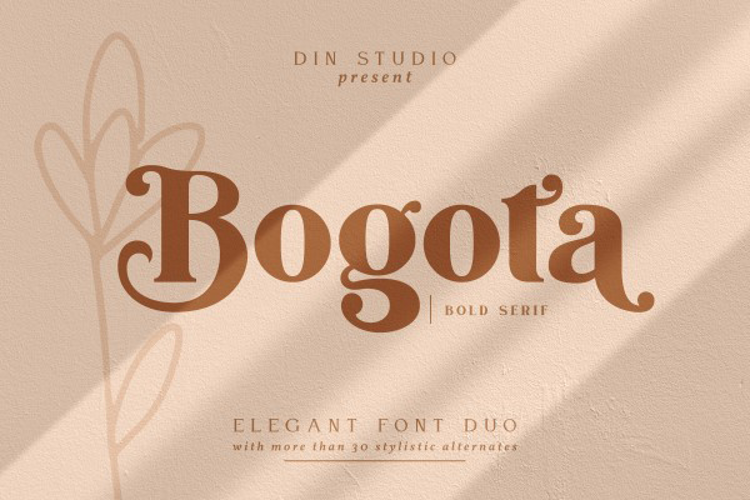
Bogota Font
Product Description :
Bogota font, a modern and clean display (Serif) font created by our talented font designers. The typeface design makes your designs more beautiful and inspiring. This font is suitable for any projects, like brandings, printed templates, logos, etc. The font is also available in a thin version (pairing font).
Features include:
• Alternates
• Multilingual Supports
• Numerals and Punctuations